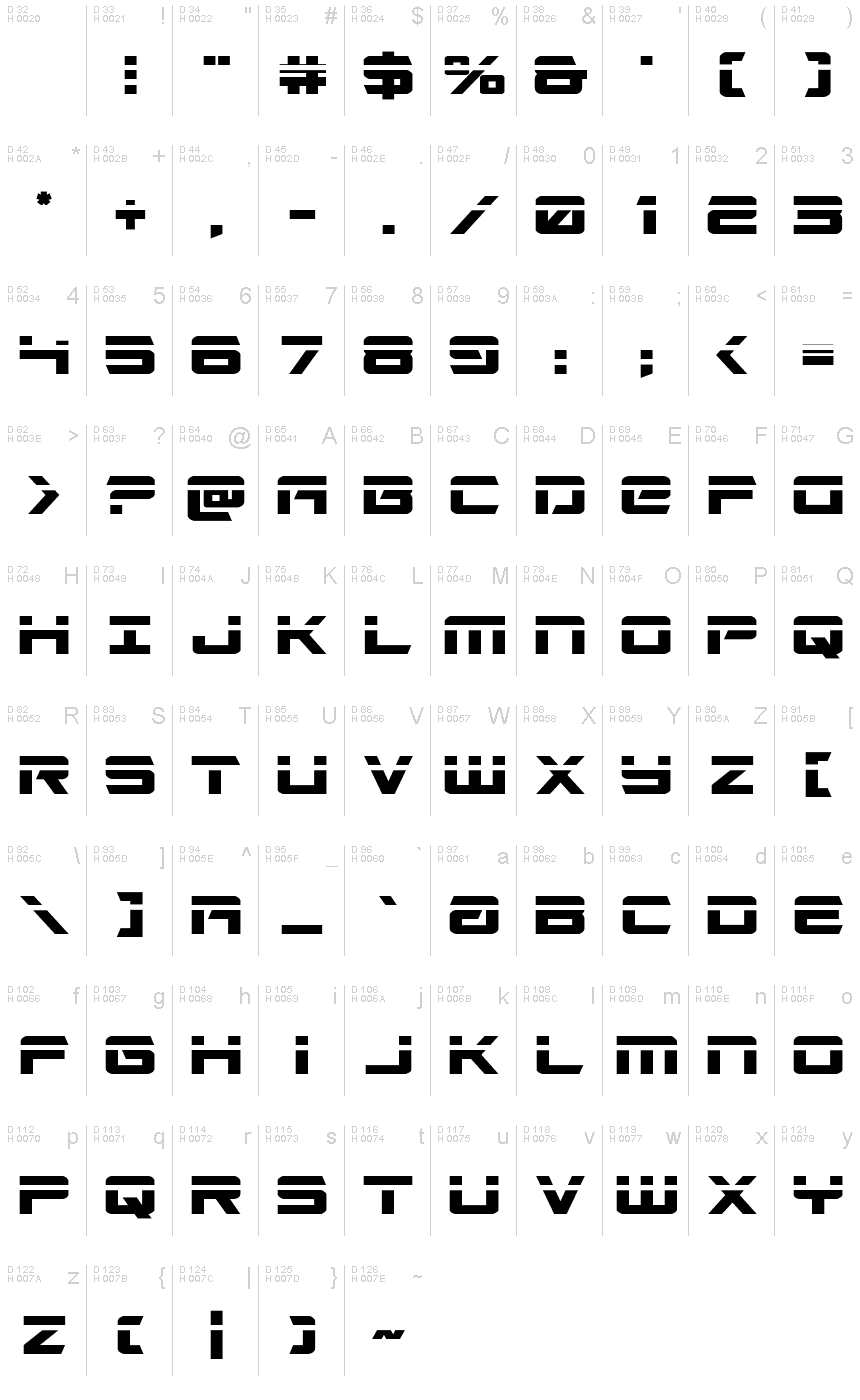
Captain Falcon Laser
Introducing Captain Falcon Laser, an extraordinary display font from the innovative mind of Iconian Fonts. With its bold and futuristic style, this extra-expanded typeface is perfect for projects that demand attention and a touch of cutting-edge design. Whether you're working on sci-fi book covers, gaming logos, or high-tech product packaging, Captain Falcon Laser will make your creations stand out from the crowd. Embrace the power of this font and unleash your creativity to new dimensions.